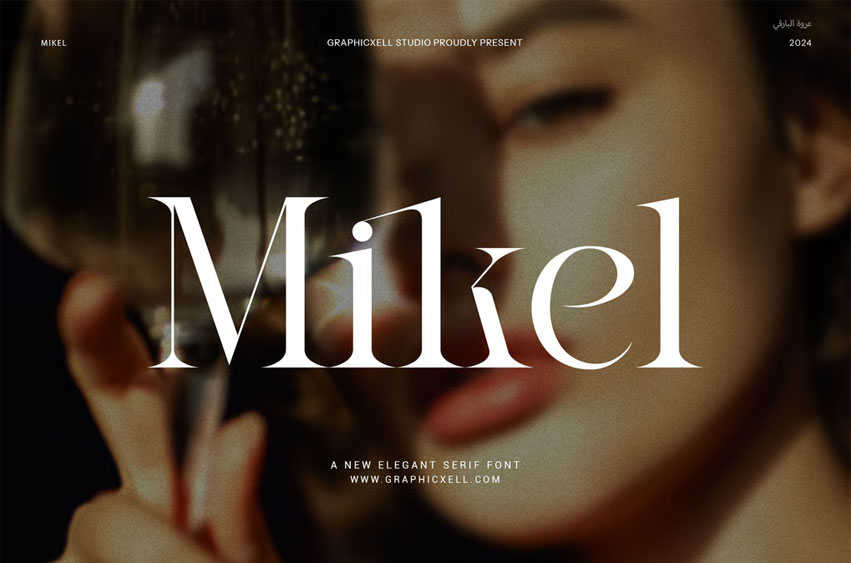
Mikel Font Elegant Serif Font is a modern and stylish serif typeface created to bring a refined touch to your design work. It combines classic charm with a fresh, professional look. Because of its clean shape and balanced details, it works well in many creative projects.
This font is designed to stand out while staying easy to read. Its beautiful ligatures give your text a smooth flow and a high-end feel. Whether you are creating a logo, a website, or product packaging, Mikel adds a touch of elegance that catches attention.
What makes Mikel truly useful is its flexible style. It works perfectly for fashion brands, magazines, beauty products, luxury packaging, and even restaurant menus. Since the font is clear and sharp, it also looks great on both print and digital layouts.
Although the design is simple, it still feels unique. Each letter is carefully made with the same proportions, which keeps your layout looking neat and stylish. Also, the font supports multiple languages, making it great for international use.
In addition, Mikel comes with easy-to-use OpenType features, which let you create a more custom design. The font blends well with both minimalist and rich styles. So, you can use it for everything from bold titles to smaller text in a layout.
If you’re looking for a font that’s beautiful, functional, and easy to use, Mikel is a perfect match. It helps your design feel modern but still timeless.
- Elegant serif with modern details
- Smooth ligatures for a polished look
- Great for logos, branding, magazines, and packaging
- Clean, readable shapes with balanced spacing
- Works well in print and on screens
- Easy OpenType features for custom styling
- Supports many languages
- Ideal for both bold and simple design